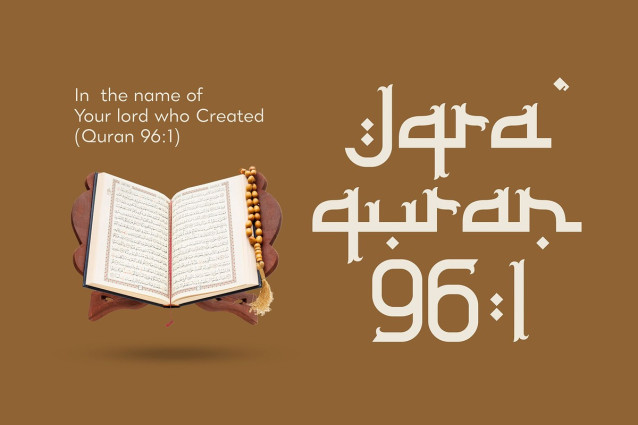
Jamillah Arabic Font
Jamillah Arabic Font is an Arabic display font with visual elegance, smooth curves, and beautiful ligatures clear, making your work look true and attractive.
A very versatile font that works in both large and small sizes. This font is suitable for a wide variety of projects such as invitations, logos, branding, magazine, photography, card, product packaging, mugs, quotes, poster, labels, signatures, and more.
A font that is perfect for all business sectors including personal projects, studio, corporate, creative agency, industrial, company, etc.